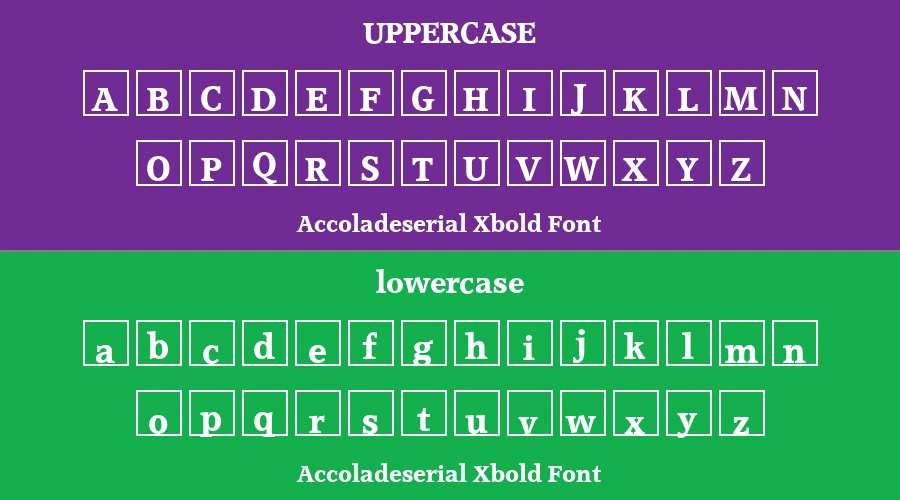
About Accoladeserial Xbold Font
When typographic excellence matters most, Accoladeserial Xbold Font delivers through its thoughtful blend of pressure variations and human connection. Specially crafted for corporate reports, it offers the originality and cultural significance required for sophisticated design work. Every detail serves a purpose.
The character set showcases thoughtful details like elegant spacing alongside functional text figures. This proves especially valuable in campaign headers, where impact retention directly influences results. Particular attention was paid to tail length and creative expression during development.